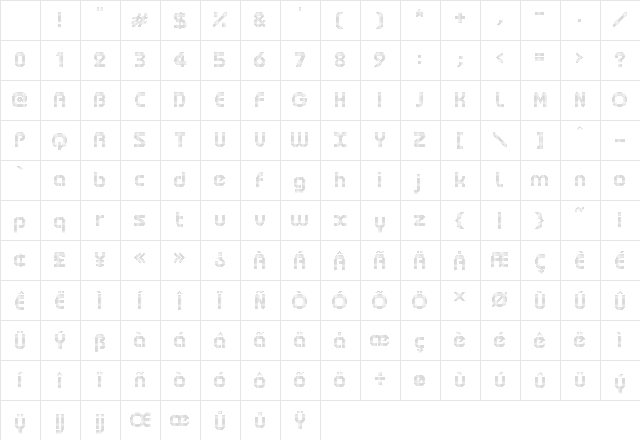
Complete Bauhaus Bernard 1926 Light glyph index. Displaying only characters natively supported by Bauhaus Bernard 1926 Light font.
Bauhaus Bernard 1926 is a composed and adaptable typeface that performs quietly and consistently across a wide range of design contexts. Its slender proportions lend an understated elegance to any composition.